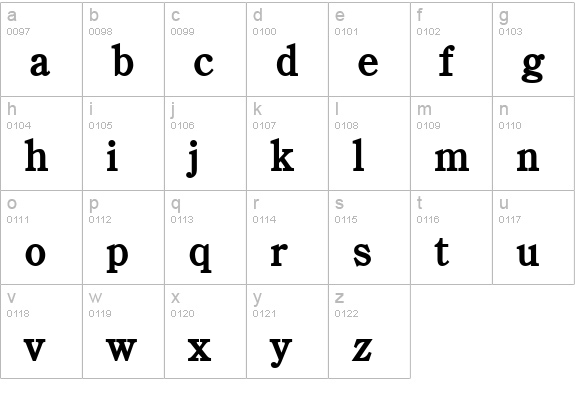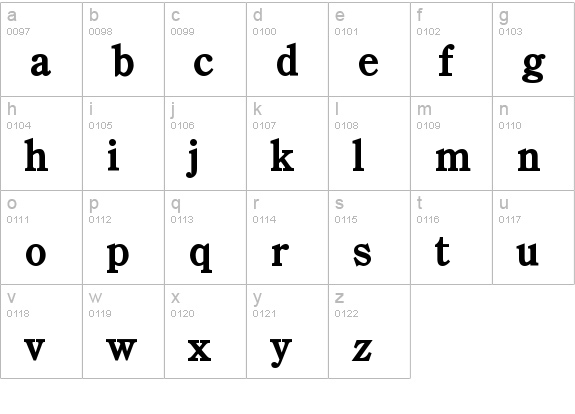
Cento Bold Font Details
Cento Bold is a strong, high-contrast variant in the Cento typeface family \xE2\x80\x94 well suited to headlines, attention-grabbing titles, and strong calls-to-action.
Cento Bold is a modern and stylish font that exudes confidence and sophistication. With its bold and eye-catching design, this typeface is perfect for creating impactful headlines, titles, and branding materials. The clean lines and sharp edges of Cento Bold make it highly versatile, suitable for a wide range of design projects. What makes Cento Bold even more appealing is that it is available for free download at FontsMarket.com. This means you can easily access this high-quality font and use it in your projects without any cost. Whether you are a designer, marketer, or content creator, Cento Bold is sure to elevate your work and make a lasting impression. Download Cento Bold today and add a touch of elegance to your designs.